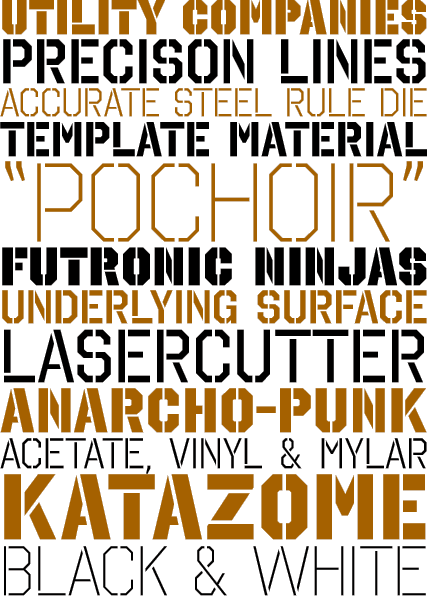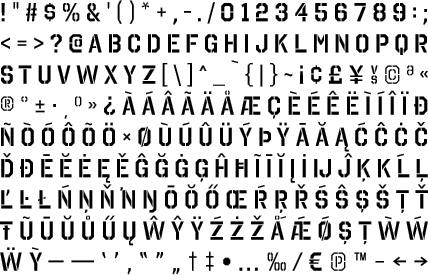
octin stencil
Octin Stencil is a tough headliner. Octin Stencil is perfect for police, sports, prison, construction, school or military themes. Check out the rest of the Octin families: Octin Sports, Octin College, Octin Prison, Octin Stencil & Octin Spraypaint